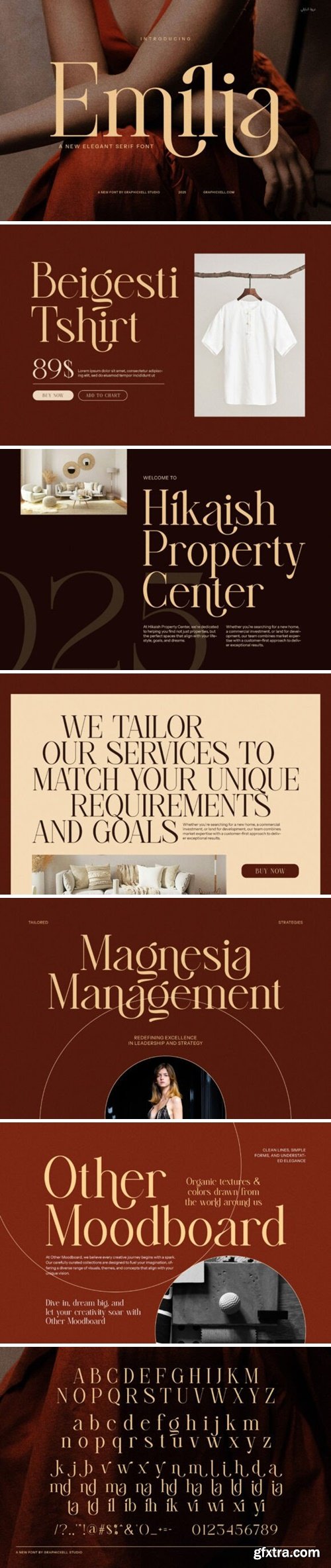
Emilia Elegant Serif Font is a stunning fusion of modern sophistication and timeless elegance, crafted to elevate your designs with style and grace. With its clean serifs, fluid curves, and meticulously designed details, Emilia offers a versatile aesthetic that suits a wide range of creative projects. Its standout ligatures and alternate forms add a touch of uniqueness, allowing you to create captivating and distinctive typography.